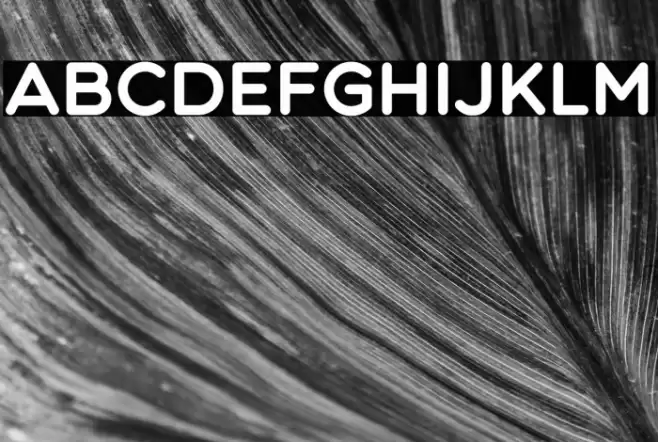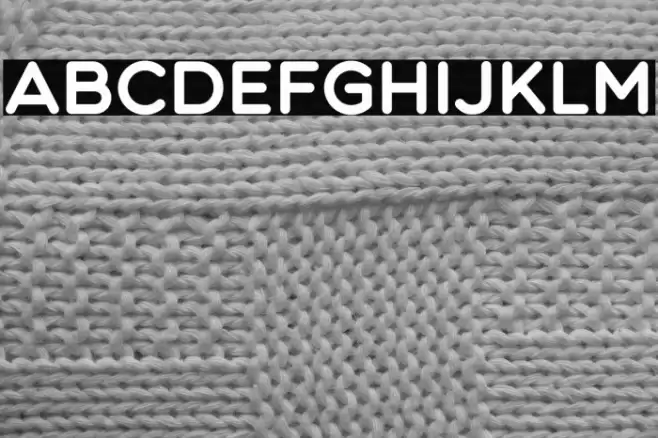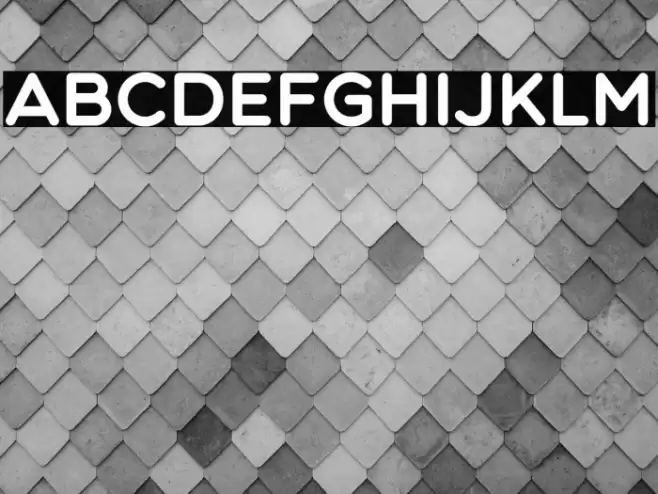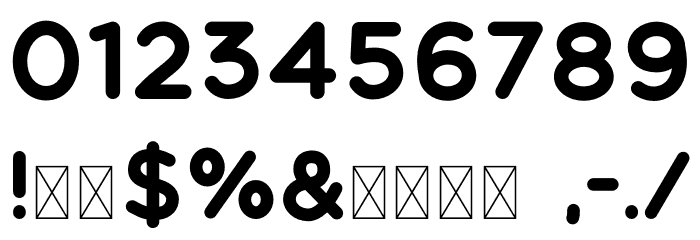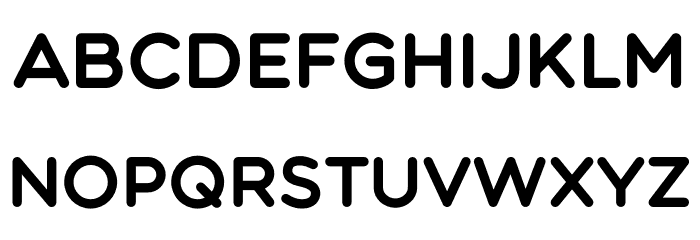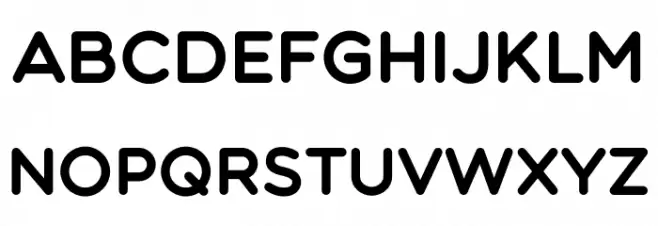
Multicolore Pro Font
Multicolore Pro Description
This font features a clean and modern sans-serif style with rounded edges, giving it a friendly and approachable appearance. The characters are evenly spaced, providing a balanced and harmonious look. The uniform stroke width across all characters contributes to its contemporary feel, making it suitable for a wide range of applications. The numerals are clear and distinct, ensuring readability in various contexts. Special characters are well-designed, maintaining the overall aesthetic of the font. Its simplicity and clarity make it versatile for both digital and print media.
A modern, rounded sans-serif font with uniform stroke width and balanced spacing from Uncategorized fonts.
- Font: Multicolore Pro
- Proposed Projects: Ideal for branding, web design, advertising, and user interfaces due to its clean and modern appearance.